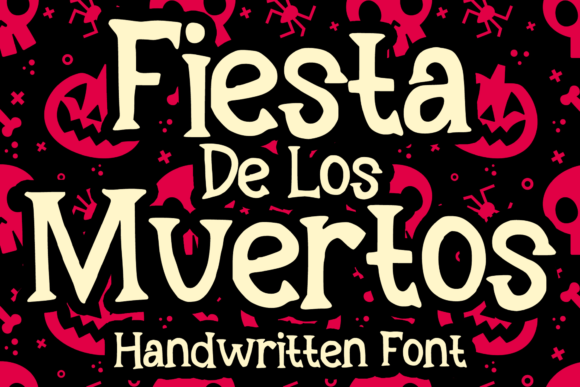
Introducing Fiesta De Los Muertos, a playful and vibrant display font that will bring a touch of joy and festivity to your creative projects. Brimming with personality, this font is more than a collection of letters and symbols; it's an invitation to embark on a whimsical journey, where words dance and colors burst in perfect harmony. Created with meticulous care by the talented MVMET, Fiesta De Los Muertos is not just a font; it's a fiesta of creativity, a celebration of life and imagination.
Picture this: you're working on a children's e-book, and you want the font to reflect the story's playful and lighthearted vibe. Look no further than Fiesta De Los Muertos. With its whimsical curves and lively shapes, this font will make your words come alive, captivating young readers and transporting them to a world of magic and adventure.
Or perhaps you're designing greeting cards for a special occasion. Fiesta De Los Muertos is the perfect choice to add a touch of cheer and festivity to your cards. The font's playful personality will spread joy and warmth to your loved ones, making every message feel like a heartfelt celebration.
Let's not forget about social media posts, posters, and banners. Fiesta De Los Muertos will make your designs pop with its eye-catching style. Its vibrant colors and bold shapes will demand attention, ensuring your message stands out in a crowded digital landscape.